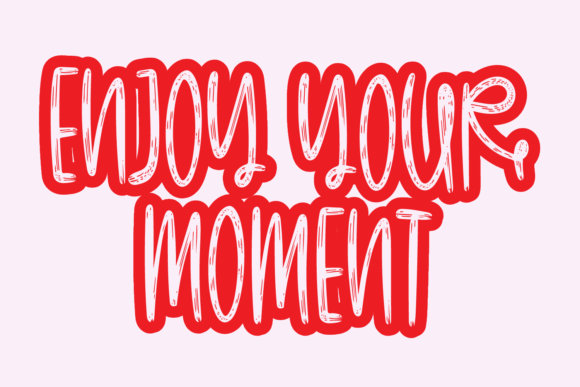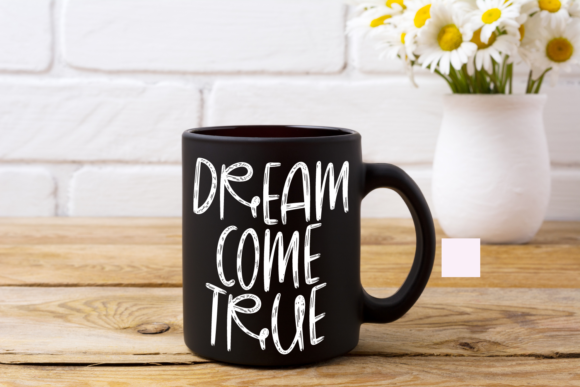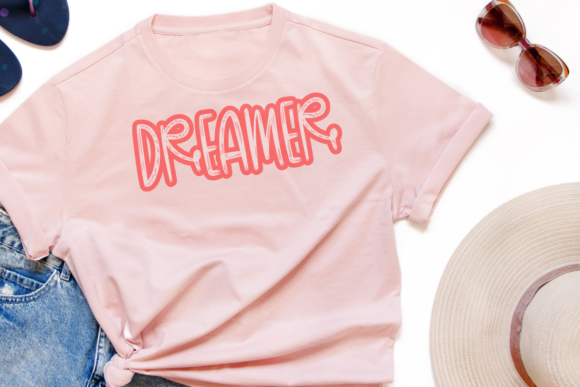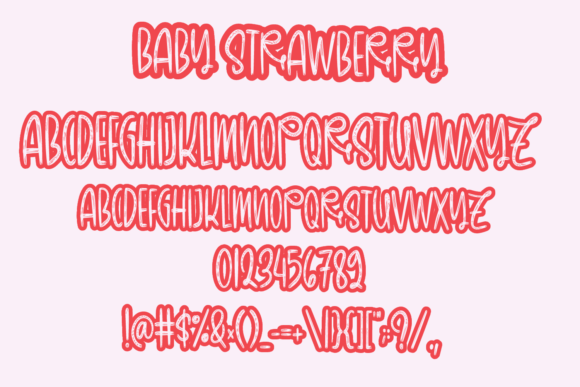
The Sweetest Addition to Your Design Toolbox
Have you ever stumbled upon a font that immediately sparks a wave of creativity? For many designers, it’s a moment of pure joy – the perfect blend of inspiration and excitement. That’s exactly what happens when you lay eyes on the adorable Baby Strawberry Font. This charming display font is a masterclass in whimsy, making it the perfect addition to any design project.
Whether you’re crafting custom greeting cards, designing engaging presentations, or working on a digital project, the Baby Strawberry Font is sure to bring a smile to your face and a touch of personality to your work. Its cool, brushed texture and playful vibe make it a valuable asset for designers looking to add a unique twist to their creations.
Baby Strawberry Font Key Features
- Font Family: Baby Strawberry
- Unique Characteristics: Cursive, Handwritten, Whimsical, and Playful font style
Design Review: Baby Strawberry Font
Overall, I think the Baby Strawberry Font is a unique and playful addition to any design project. ✨ The font’s rounded edges and soft lines give it a childlike charm that’s perfect for brands targeting young audiences or creating a whimsical atmosphere.
- ✨ The font’s high x-height makes it easy to read, even at smaller sizes.
- ✨ The rounded edges add a touch of friendliness and approachability.
- ✨ The font’s versatility makes it suitable for various design applications, from logos to packaging.
- ⚠️ The font’s bold weight can become overwhelming in certain contexts.
- ⚠️ The font’s rounded edges may not be suitable for formal or professional designs.
- ⚠️ The font’s uniqueness can be a double-edged sword; while it stands out, it may also be difficult to pair with other fonts.
In conclusion, the Baby Strawberry Font is a fun and creative option for designers looking to add some personality to their projects. While it may not be suitable for every design scenario, its unique charm and versatility make it a great choice for the right project.
Use the Baby Strawberry Font for titles, headings, and other emphasis elements to add a playful touch to your design.
Pair the font with other playful or whimsical elements to create a cohesive look.
The Baby Strawberry Font is perfect for:
Children’s books and educational materials
Party invitations and decorations
Food and beverage branding
Alternatives to Baby Strawberry Font
Great Vibes Font is a beautiful, handwritten script font that is perfect for adding a touch of elegance to any design. It is ideal for use in wedding invitations, greeting cards, and other designs where a personal and whimsical feel is desired.
Compared to Baby Strawberry Font, Great Vibes Font has a more refined and sophisticated look, making it suitable for more formal designs. Baby Strawberry Font has a more playful and cursive feel, making it better suited for children’s designs or casual, friendly projects.
Alex Brush Font is a elegant, handwritten script font that is perfect for use in high-end designs such as luxury brands, magazines, and advertising. It is ideal for use in designs where a touch of sophistication and elegance is desired.
Compared to Baby Strawberry Font, Alex Brush Font has a more polished and refined look, making it better suited for formal and high-end designs. Baby Strawberry Font has a more playful and cursive feel, making it better suited for casual and friendly projects.
Pacifico Font is a beautiful, modern script font that is perfect for use in designs where a touch of sophistication and elegance is desired. It is ideal for use in designs such as magazine covers, advertising, and branding.
Compared to Baby Strawberry Font, Pacifico Font has a more modern and sleek look, making it better suited for formal and high-end designs. Baby Strawberry Font has a more playful and cursive feel, making it better suited for casual and friendly projects.